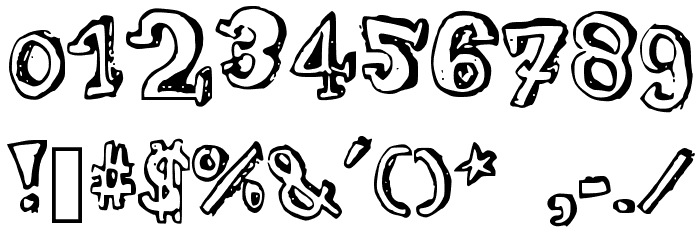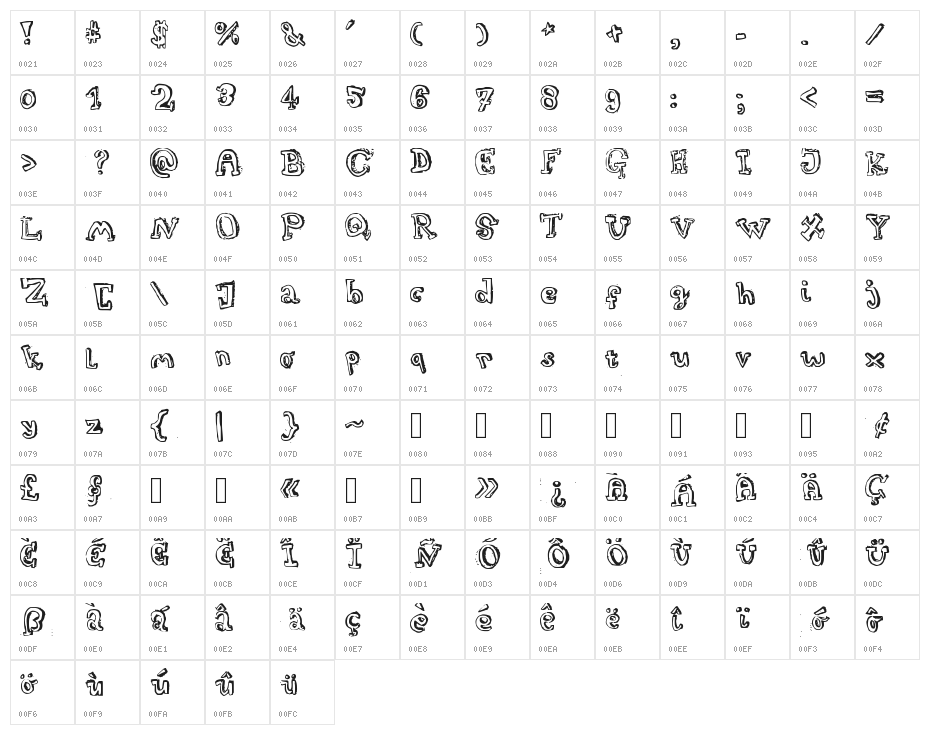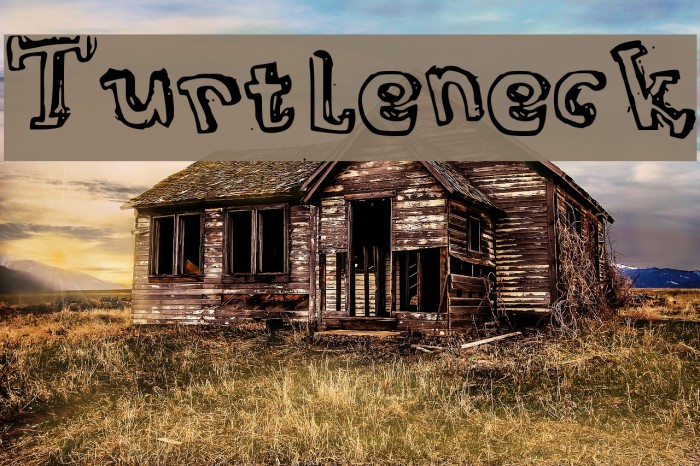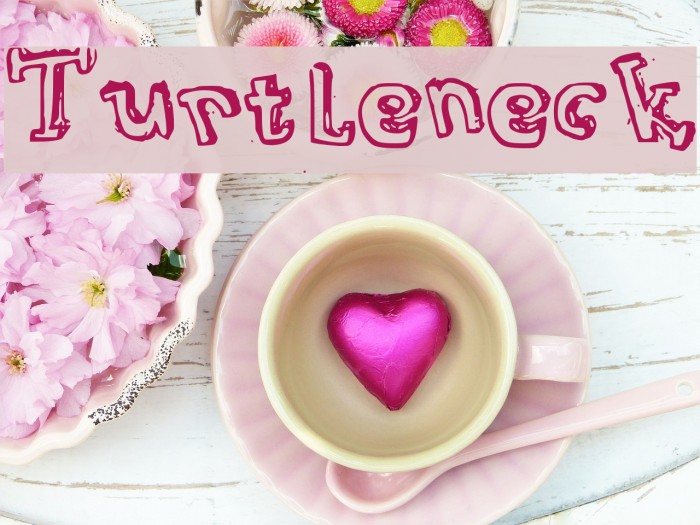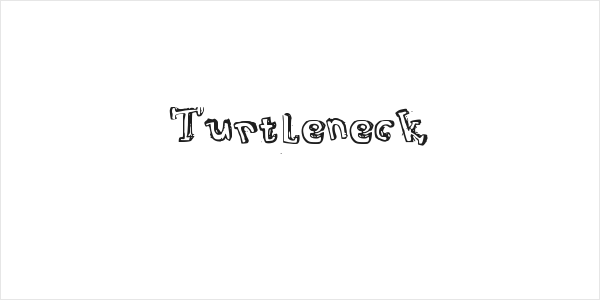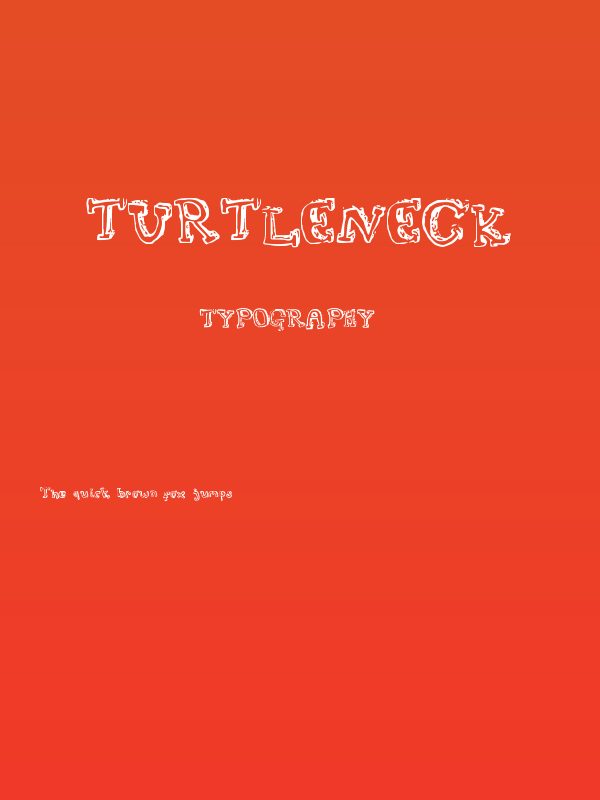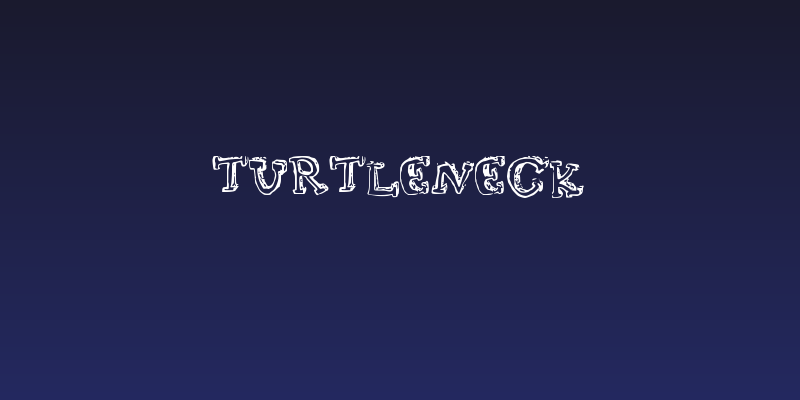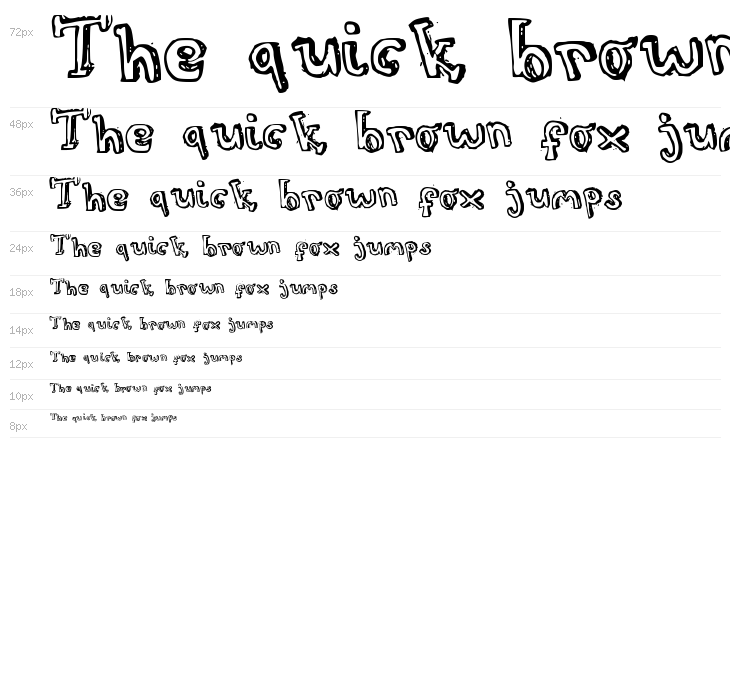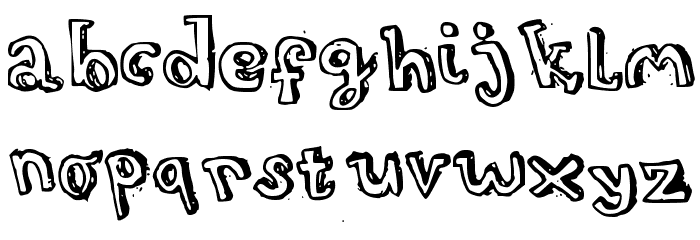
This font features a playful and artistic style with a hand-drawn appearance. The characters are bold and have a rough, textured outline that gives them a unique, distressed look. The uppercase and lowercase letters maintain a consistent style, with quirky, uneven lines that add to the font's charm. Numbers and special characters follow the same design, ensuring a cohesive appearance across all glyphs. The font's irregularities and bold strokes make it stand out, ideal for creative projects that require a touch of whimsy and individuality.
| Proposed Projects | Ideal for children's book covers, playful posters, artistic branding, and creative social media graphics. |